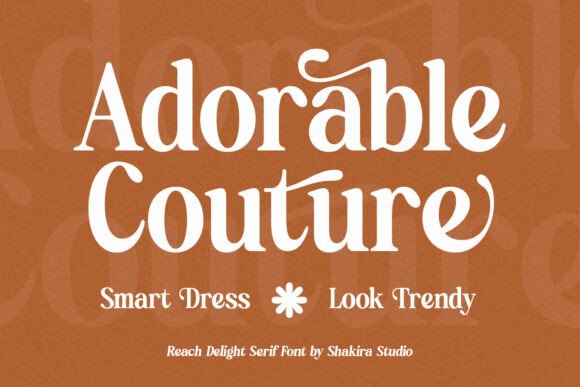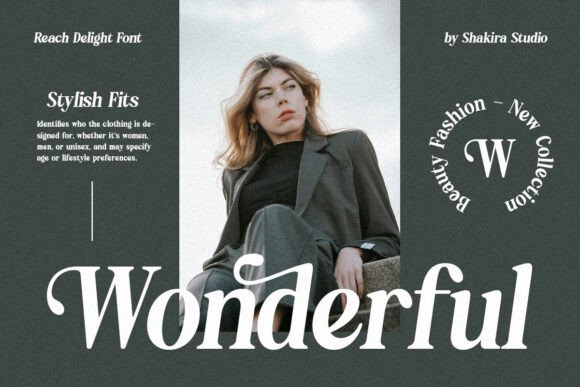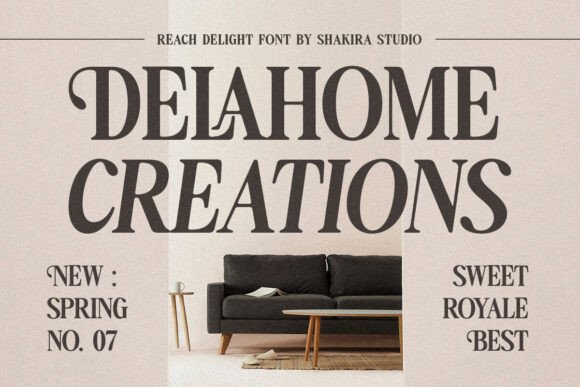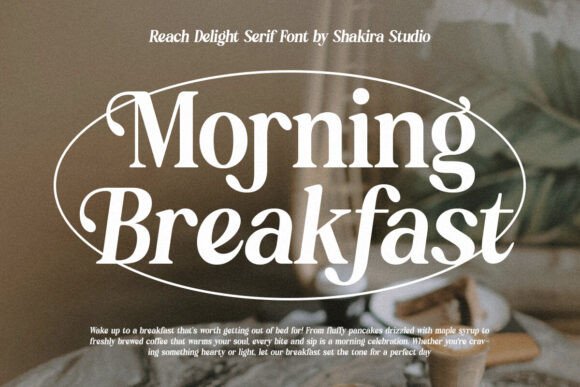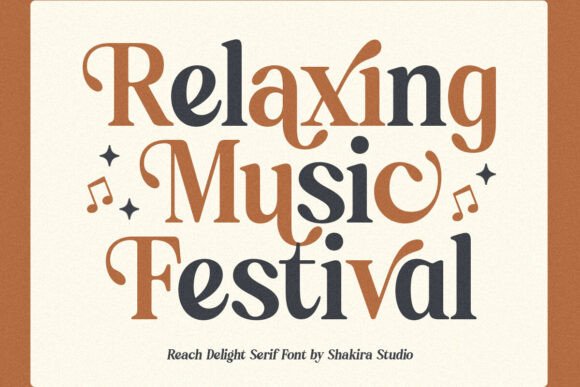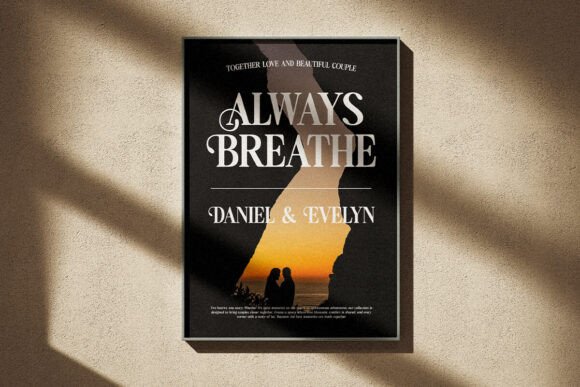
Introduction to Reach Delight Font
Have you ever been working on a design project, staring at a blank canvas, and suddenly, a spark of inspiration hits? That’s exactly what happened when I first laid eyes on the Reach Delight Font. Its unique blend of vintage charm and modern sophistication immediately caught my attention, and I knew I had to share it with the design community.
As designers, we’re always on the lookout for high-quality design resources that can elevate our creative projects. The Reach Delight Font is one such gem that offers endless possibilities for branding, editorial work, and social media graphics. With its stylish alternates and ligatures, this font is perfect for designers who want to add a touch of timeless elegance to their designs.
What sets the Reach Delight Font apart is its versatility and ease of use. Whether you’re working on a free download or a paid project, this font is sure to impress with its high-quality design and transparent background options. In this article, we’ll dive deeper into the features and benefits of the Reach Delight Font, and explore why it’s a valuable addition to any designer’s toolkit.
Key Features of Reach Delight Font
- Unique, high-quality design resource ideal for creative projects, offering a modern and elegant aesthetic.
- Perfect for designers, artists, and writers seeking a versatile and stylish font to elevate their work, whether for personal or professional projects.
Honest Review: Reach Delight Font
As a designer, I’m always on the lookout for high-quality design resources that can elevate my creative projects. The Reach Delight Font caught my eye, and I was excited to give it a try.
What works well: ✨ The Reach Delight Font has a unique, hand-drawn feel that’s perfect for adding a touch of personality to my designs. It’s also incredibly versatile, with a wide range of styles and weights to choose from. Plus, it’s available for free download, making it an excellent resource for designers on a budget.
- Unique, hand-drawn feel
- Wide range of styles and weights
However, there are a few limitations: ⚠️ The font doesn’t have a transparent background, which can make it difficult to use on complex designs. Additionally, the font files can be quite large, which may slow down your computer.
Overall, I’m impressed with the Reach Delight Font. It’s a great addition to my design resource library, and I’ve already used it on several projects. While it’s not perfect, its unique style and free availability make it a great choice for designers looking to add some personality to their work.
The Reach Delight Font is perfect for a variety of creative projects, including graphics, presentations, and documents. Its unique design and high-quality appearance make it an excellent choice for designers and non-designers alike.